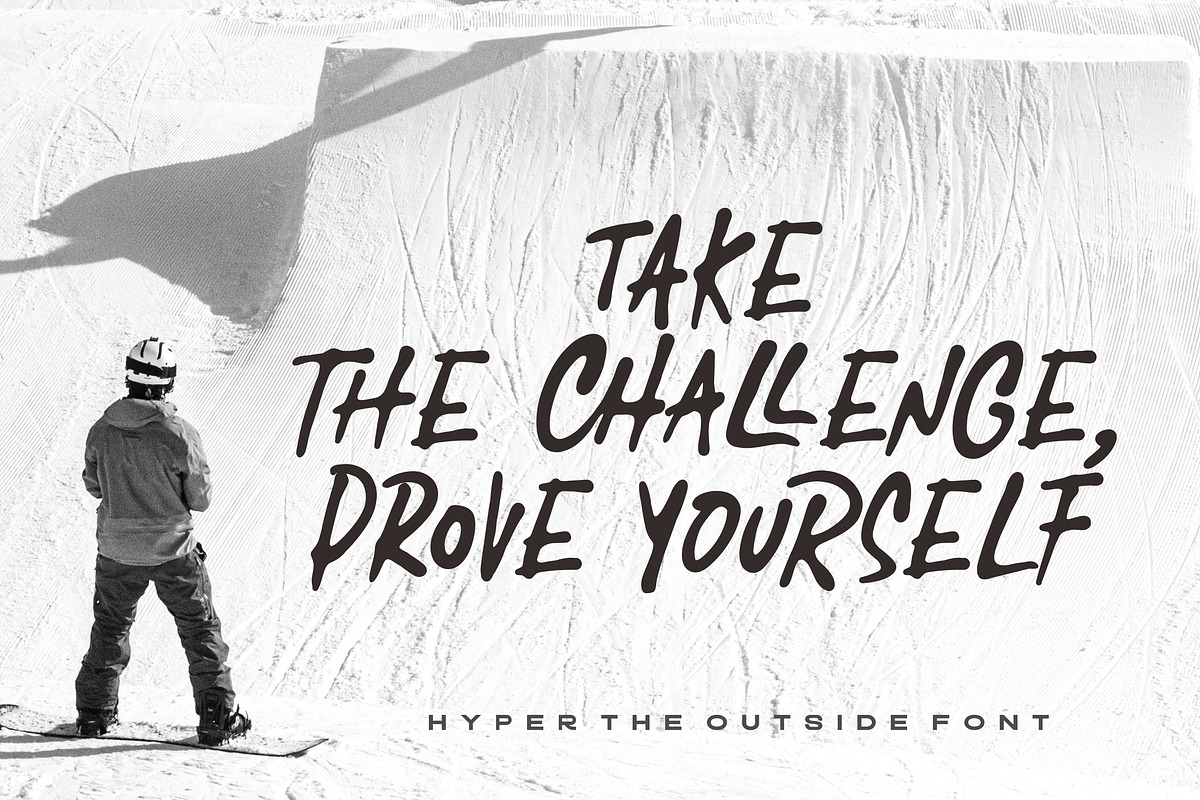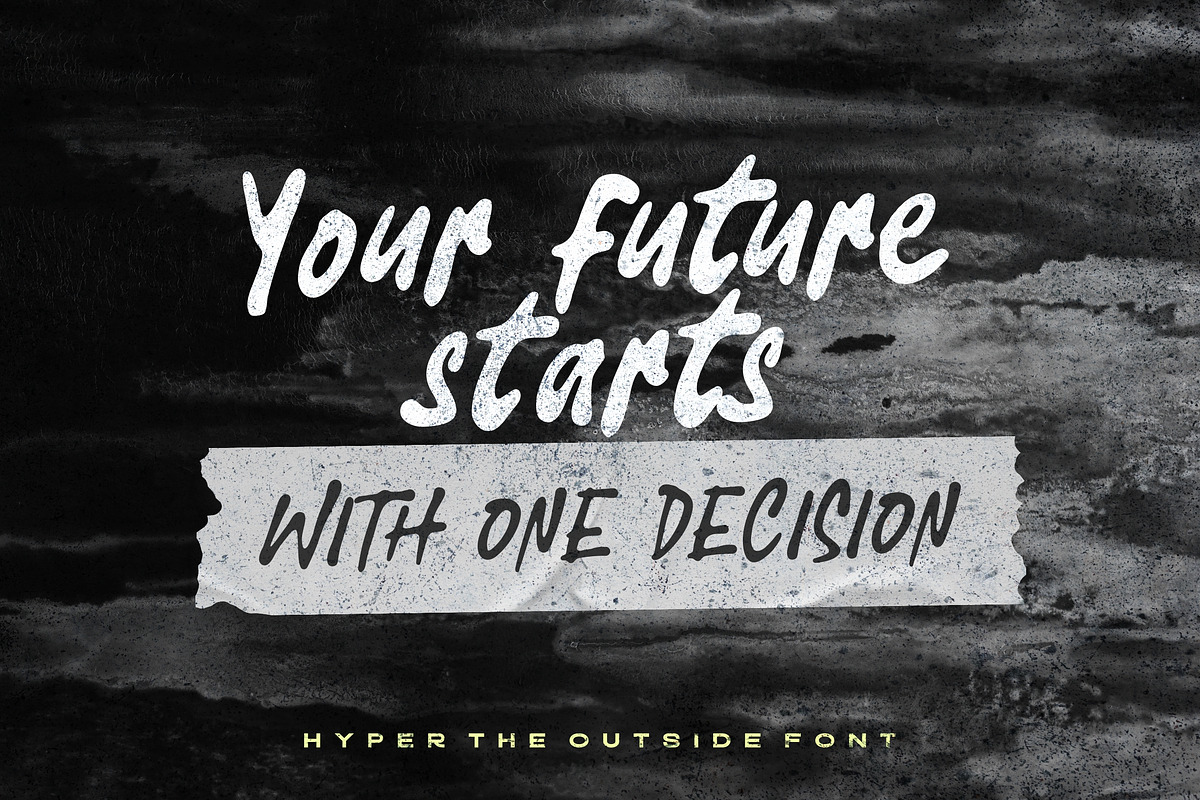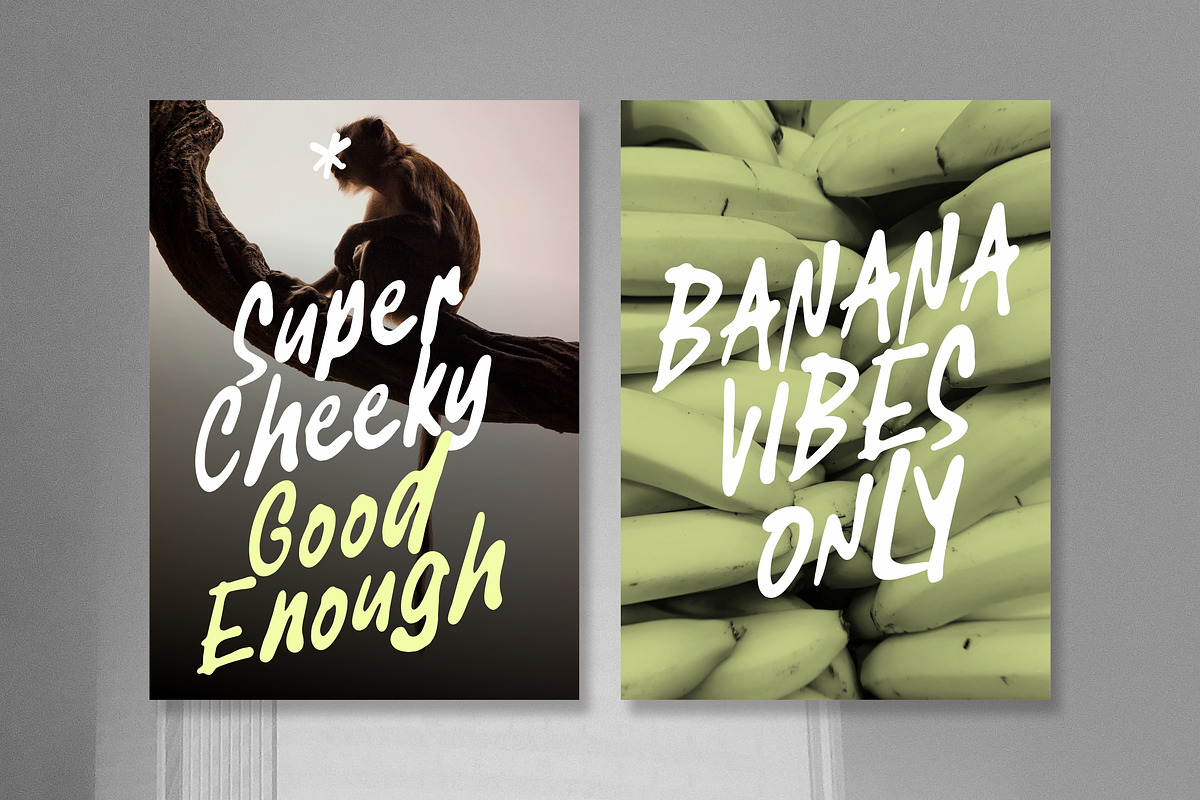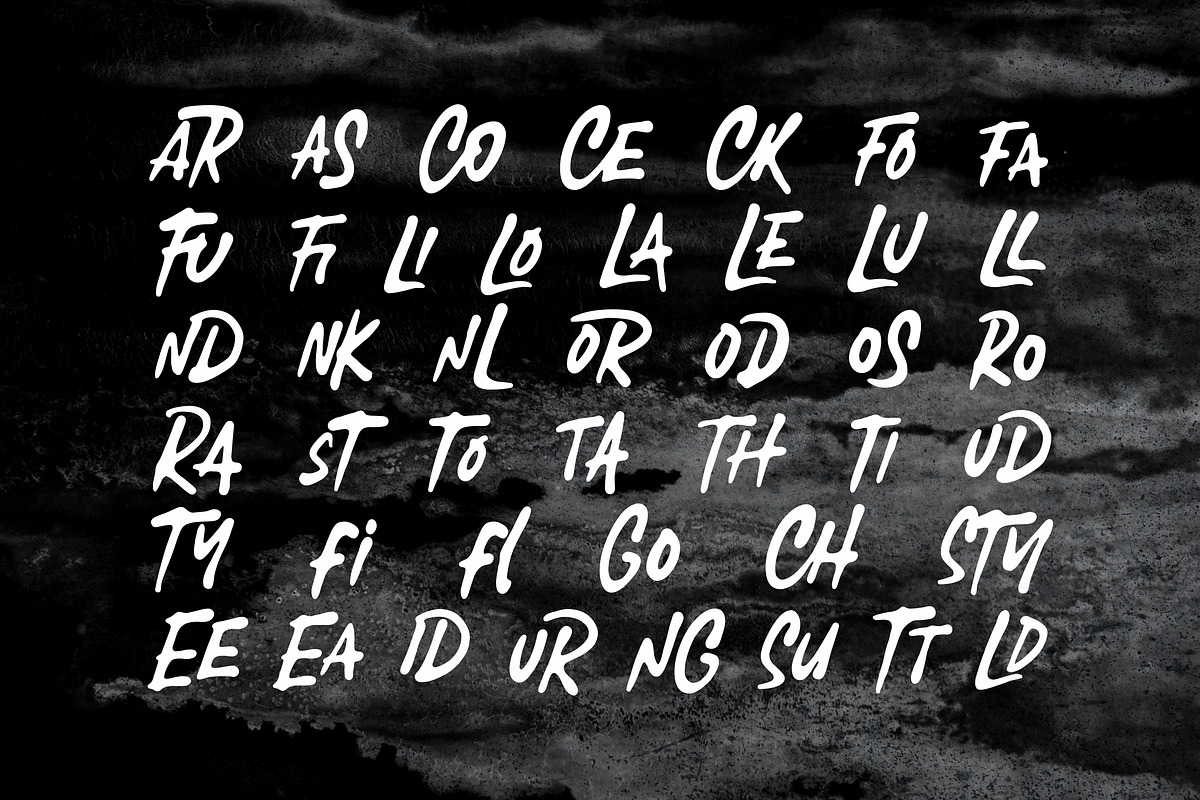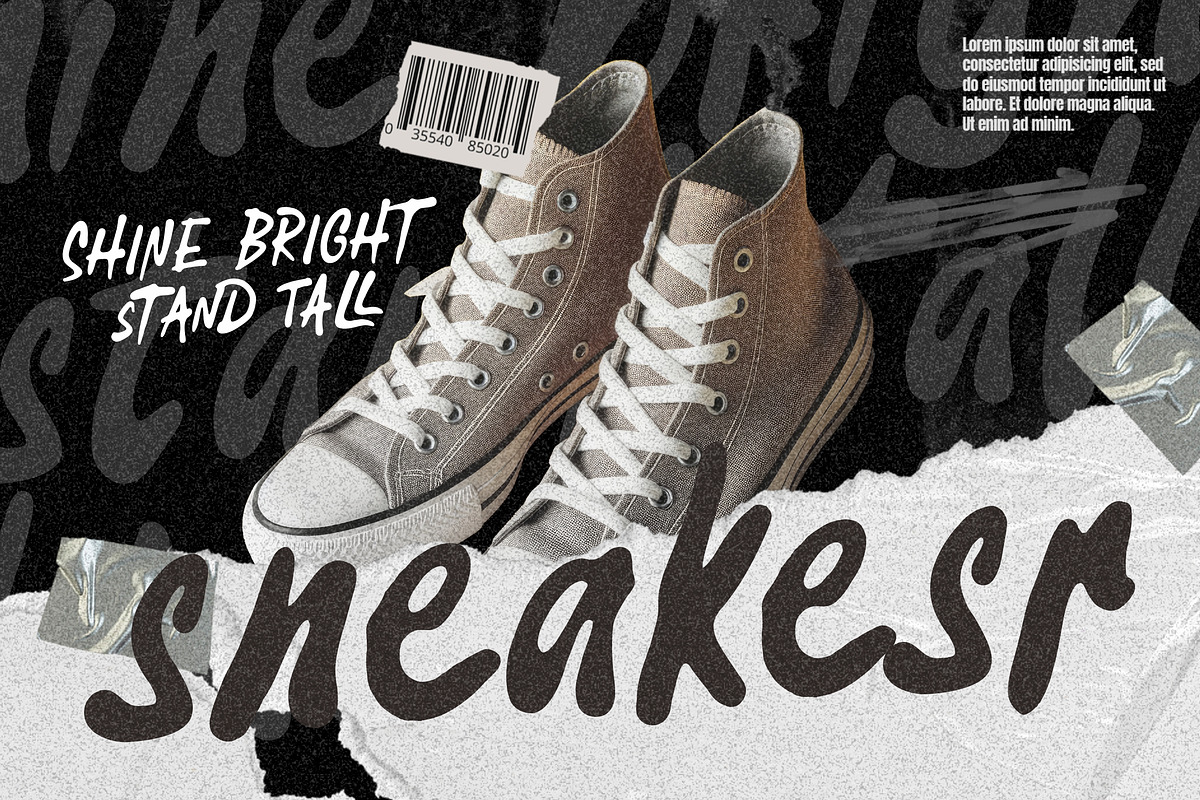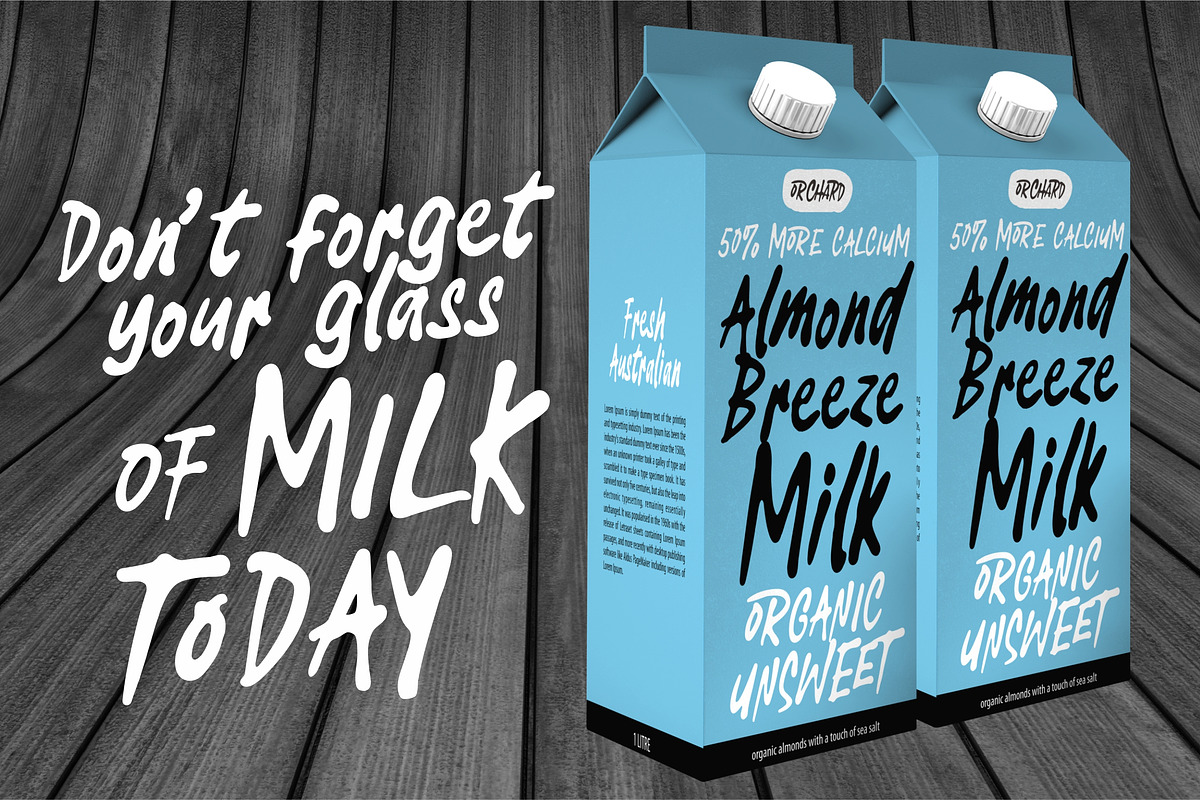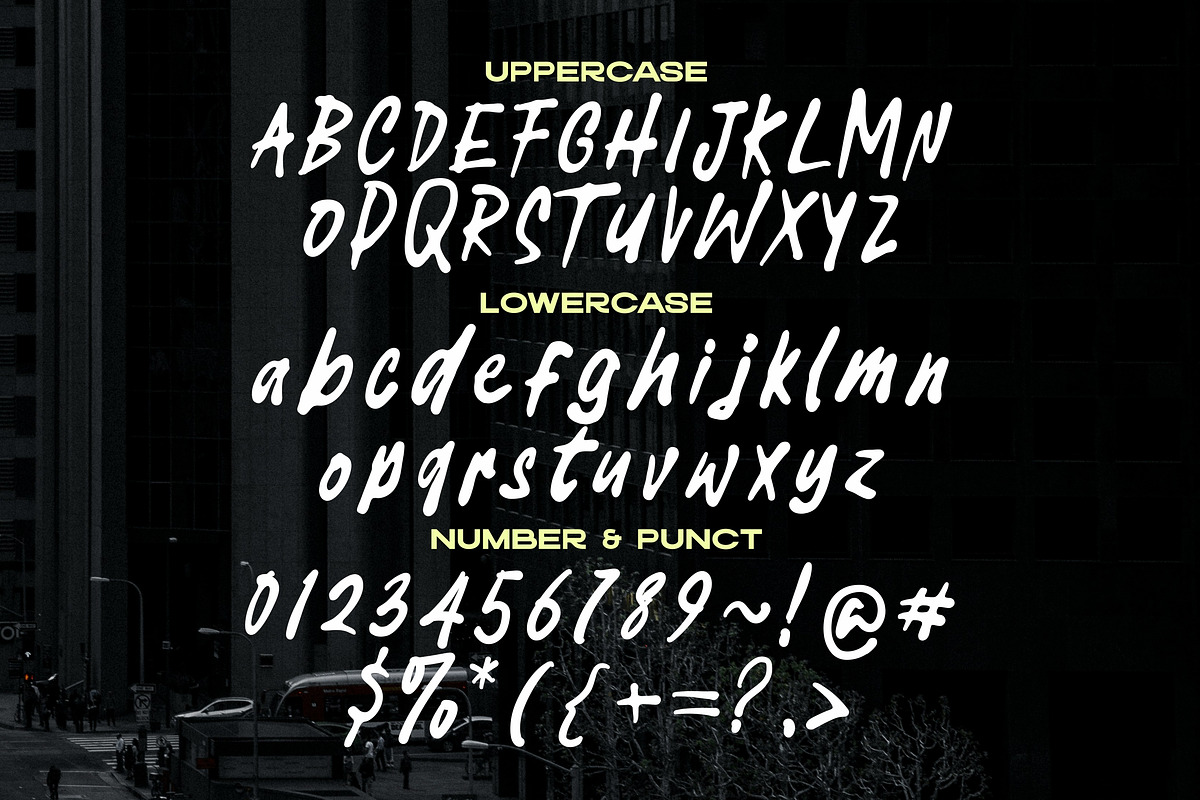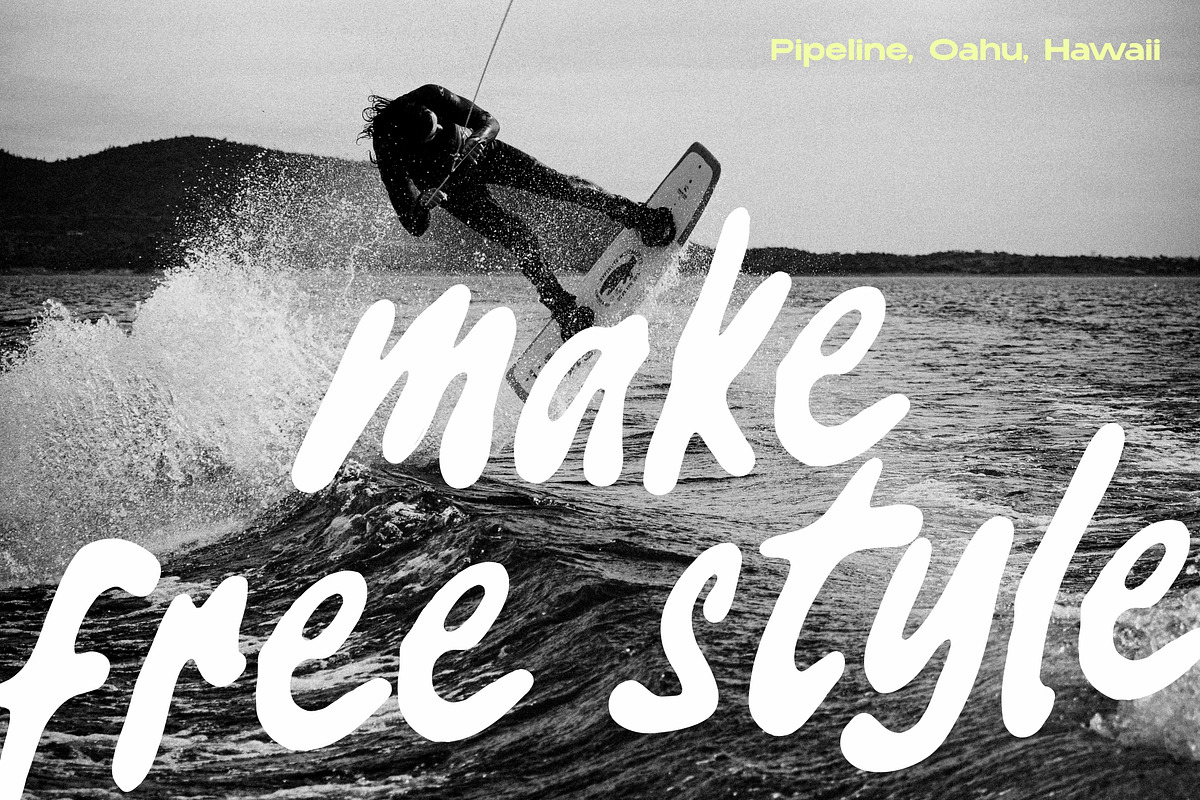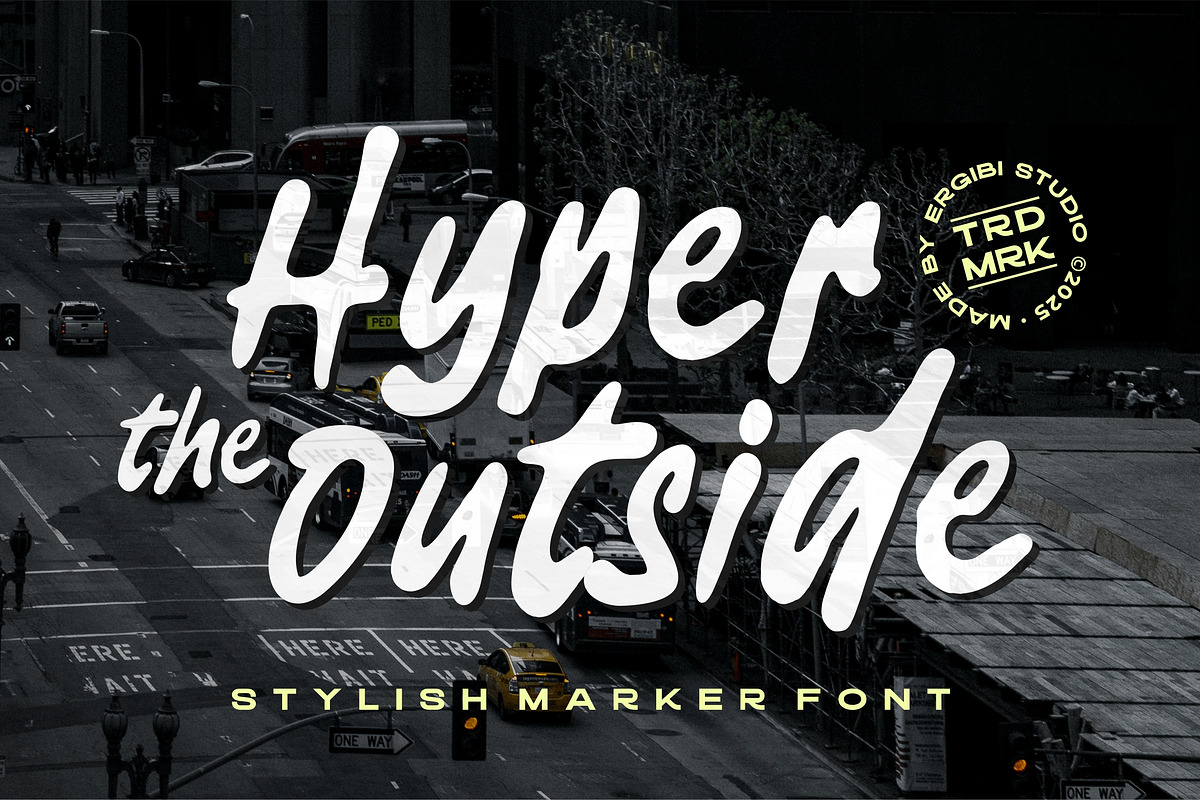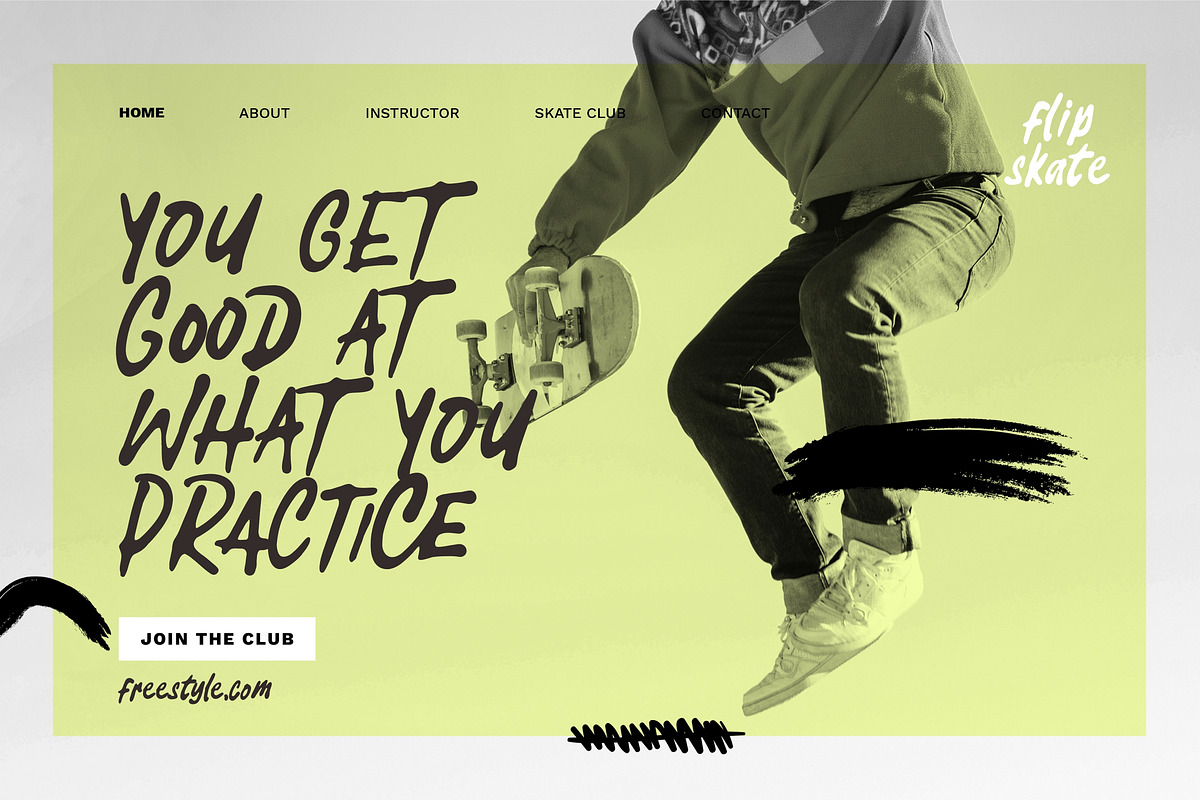
Hyper Outside - Stylish Marker
Hyper Outside is a high-energy display font bursting with bold strokes and raw character. Crafted entirely in uppercase, it radiates fearless urban attitude and a sense of motion in every letter. Perfect for streetwear branding, posters, album covers, quotes, product packaging, or any design that demands a bold, street-inspired aesthetic.